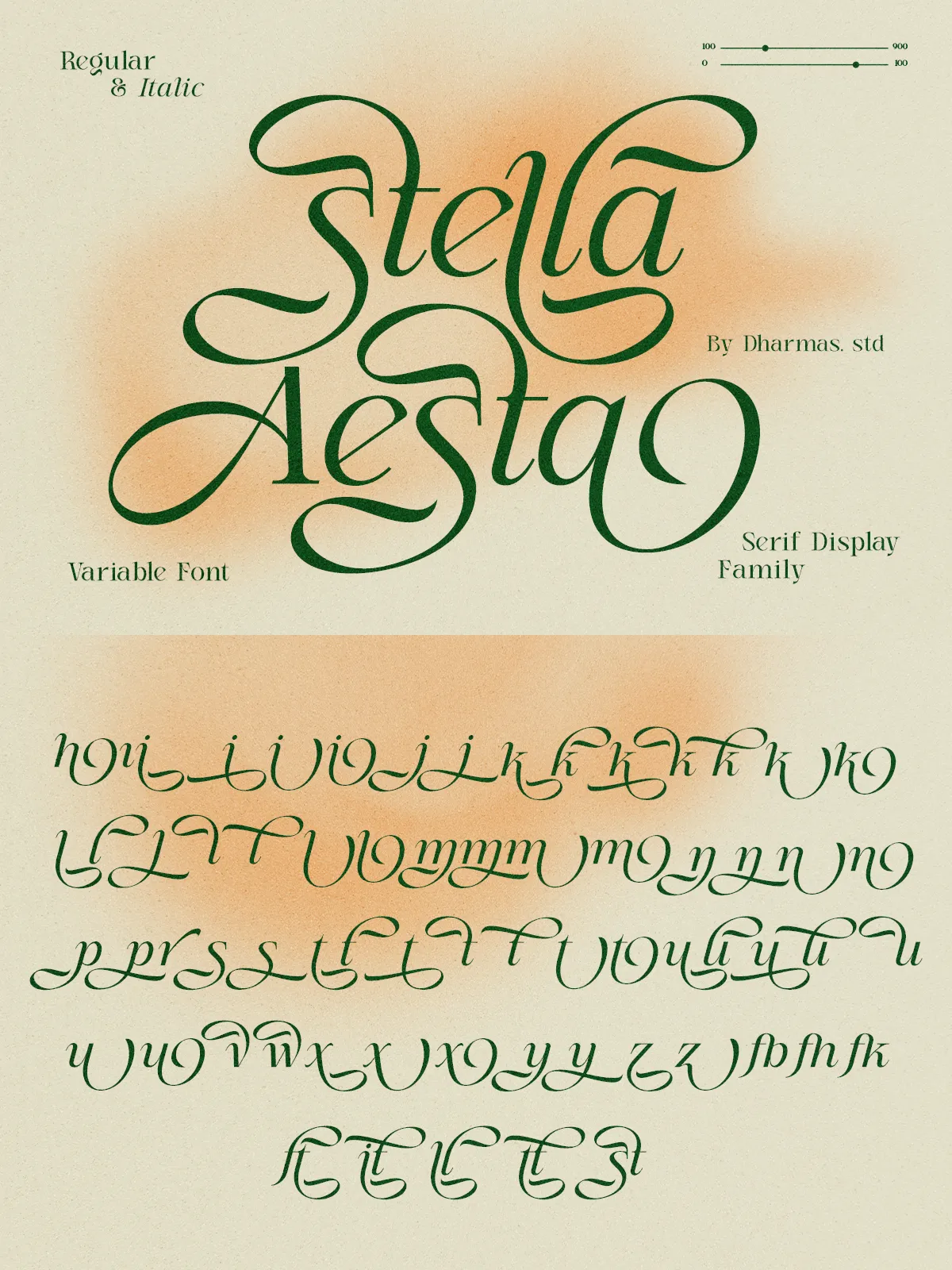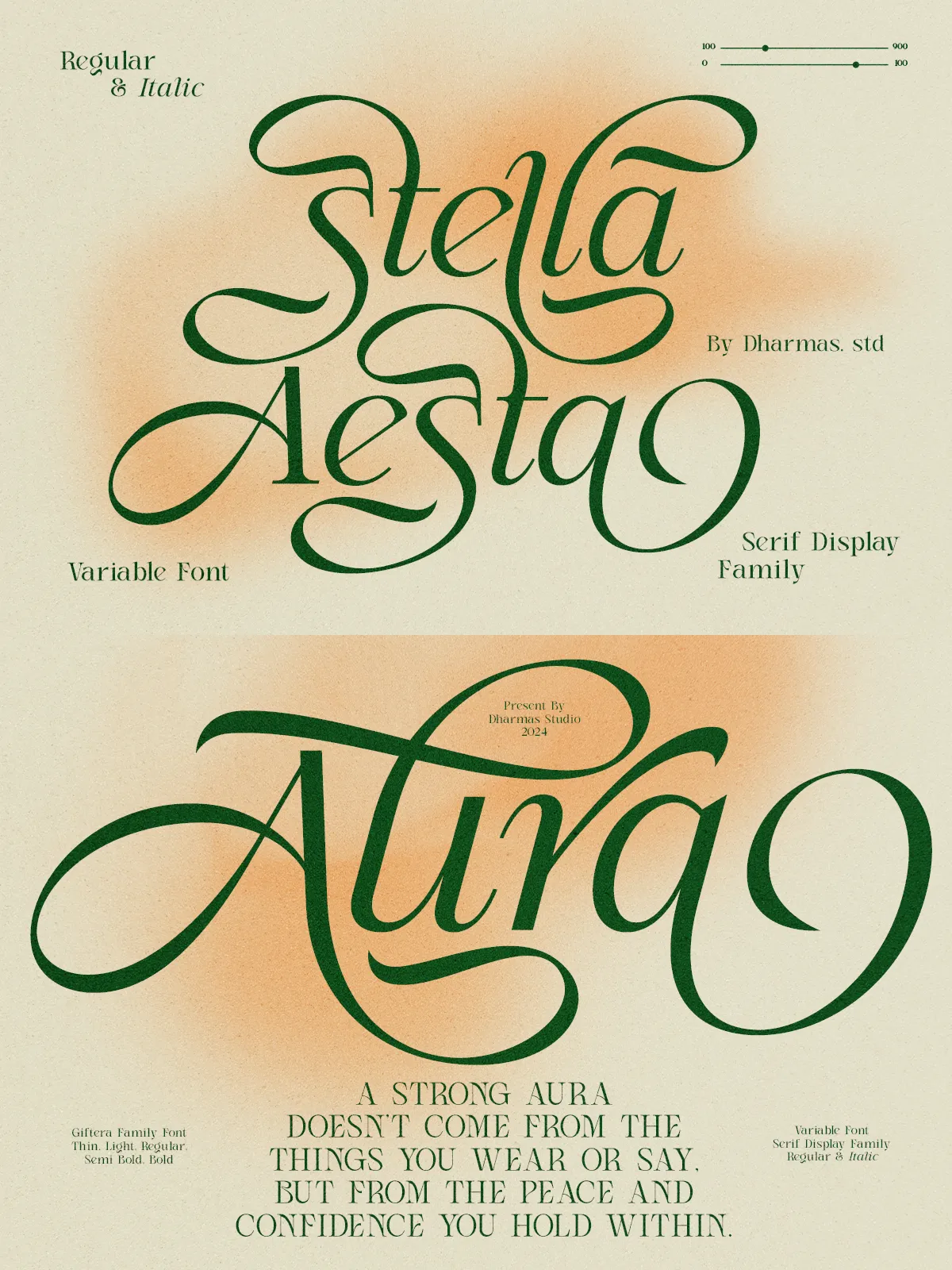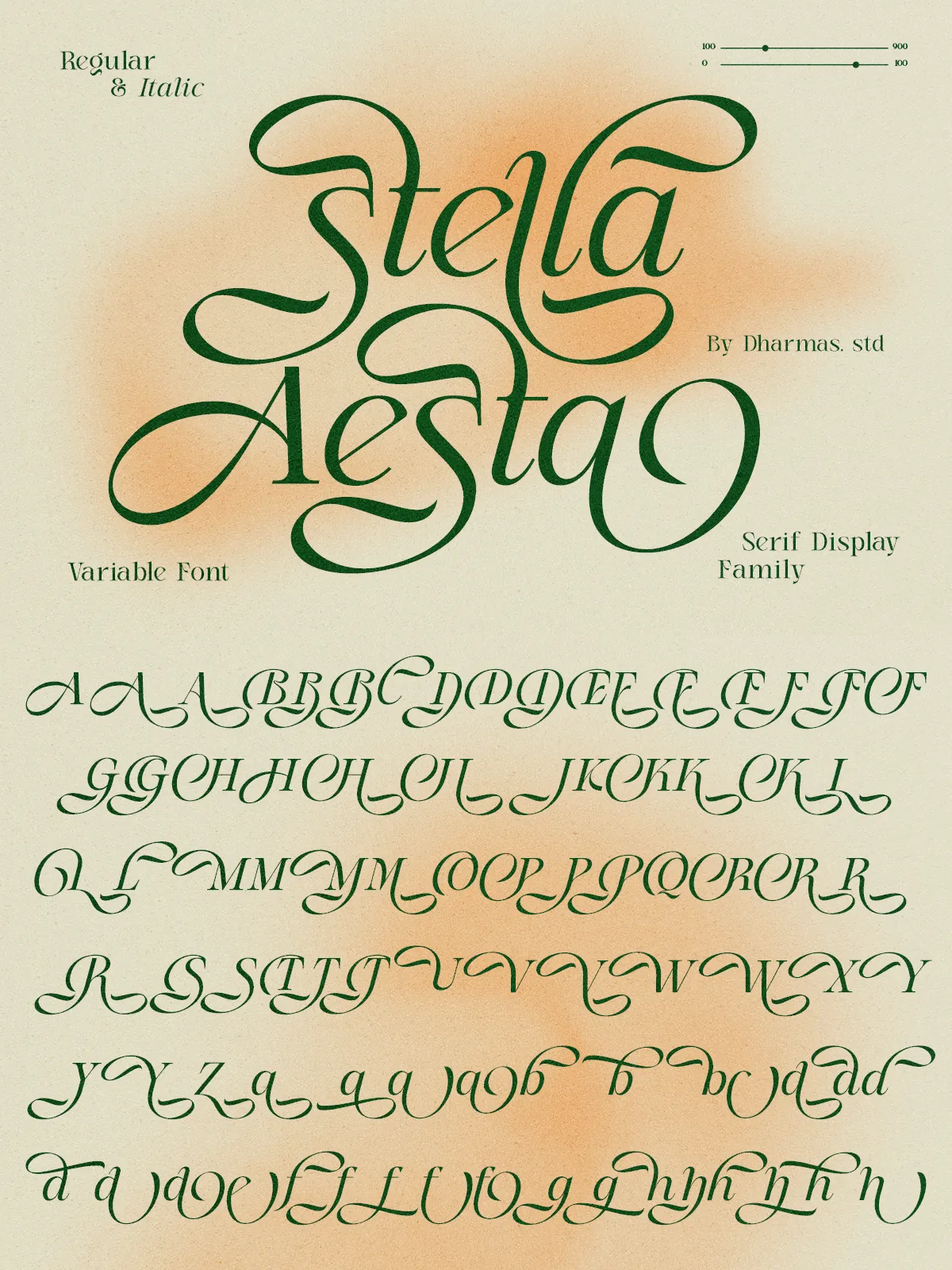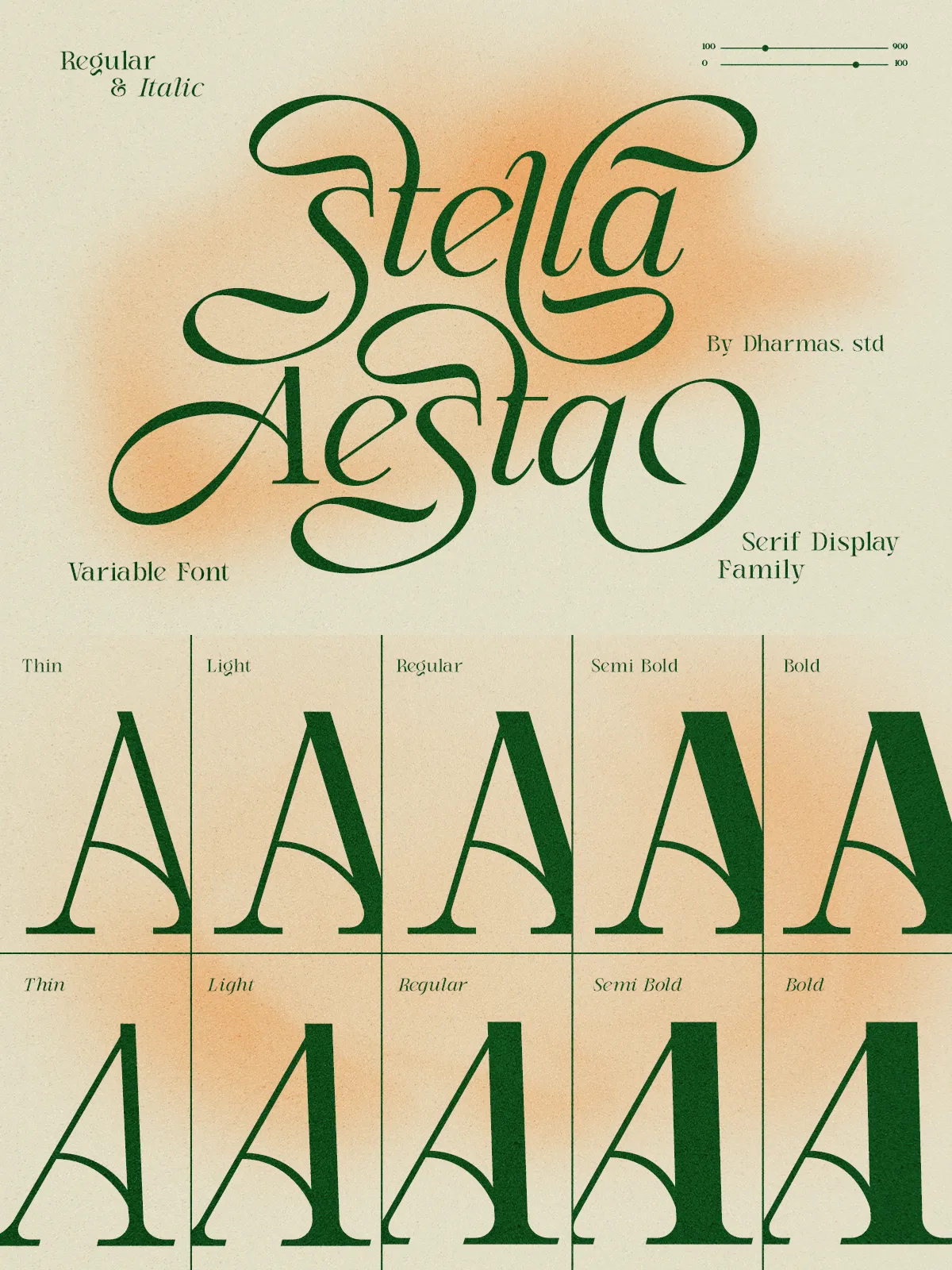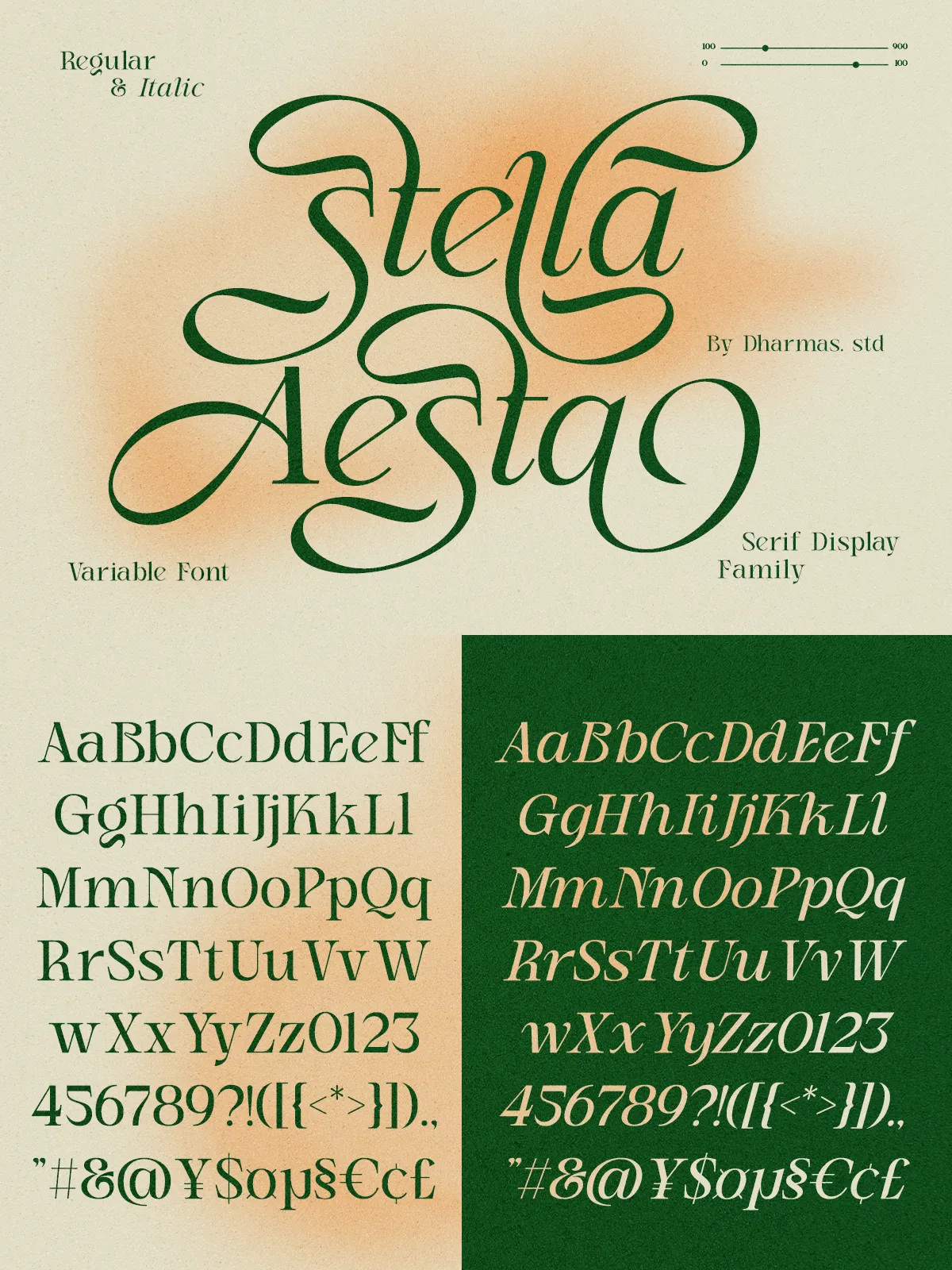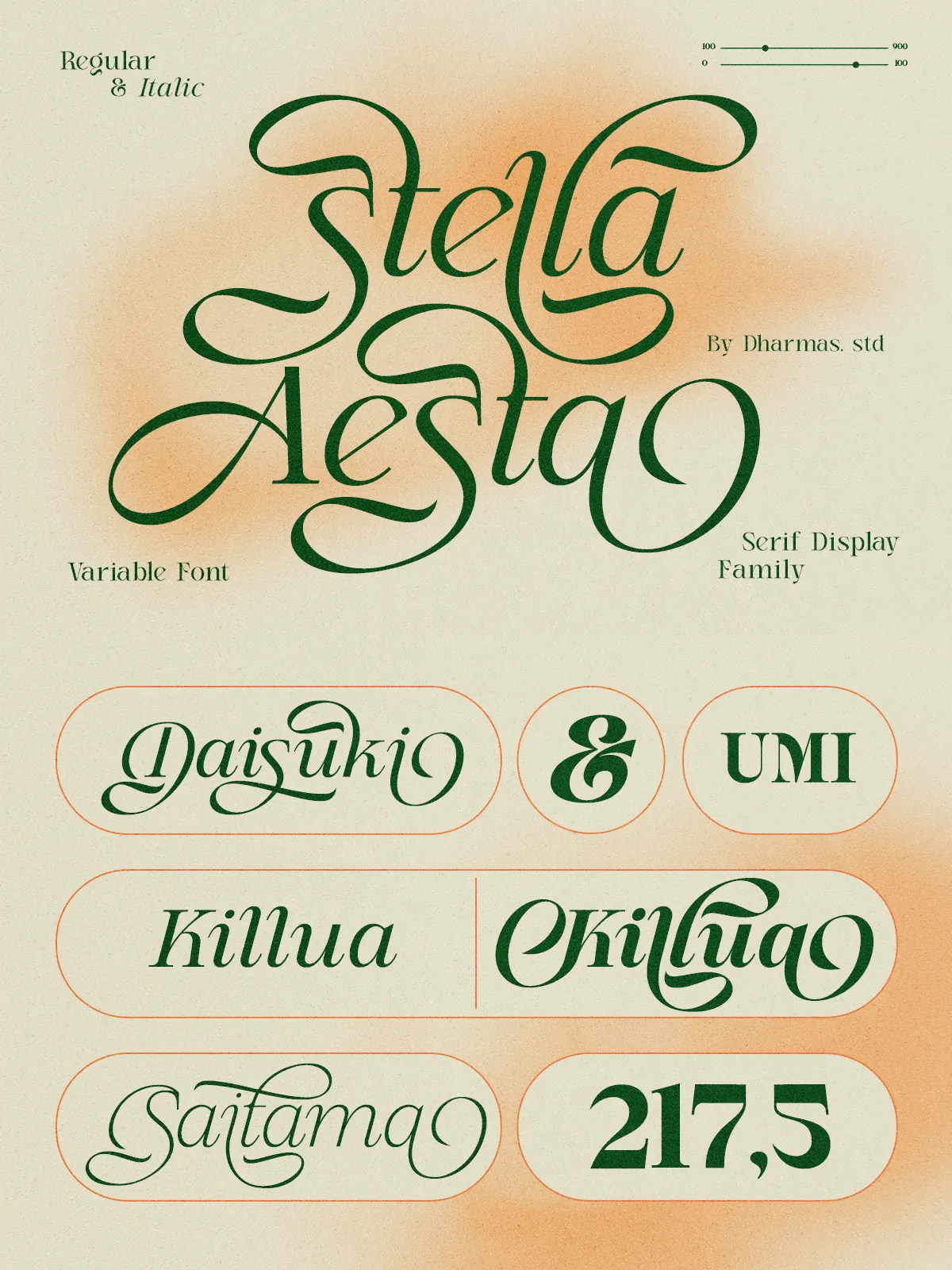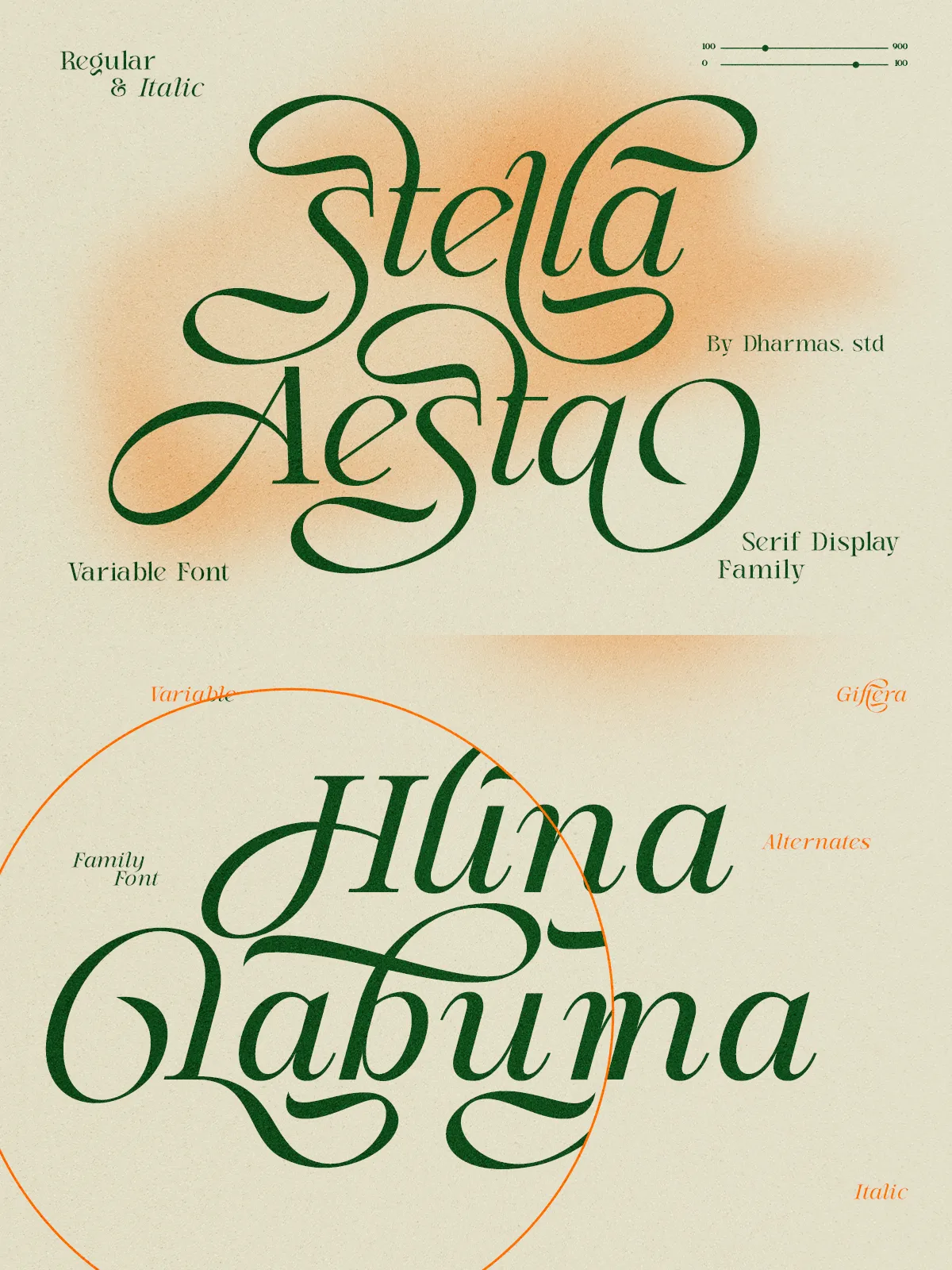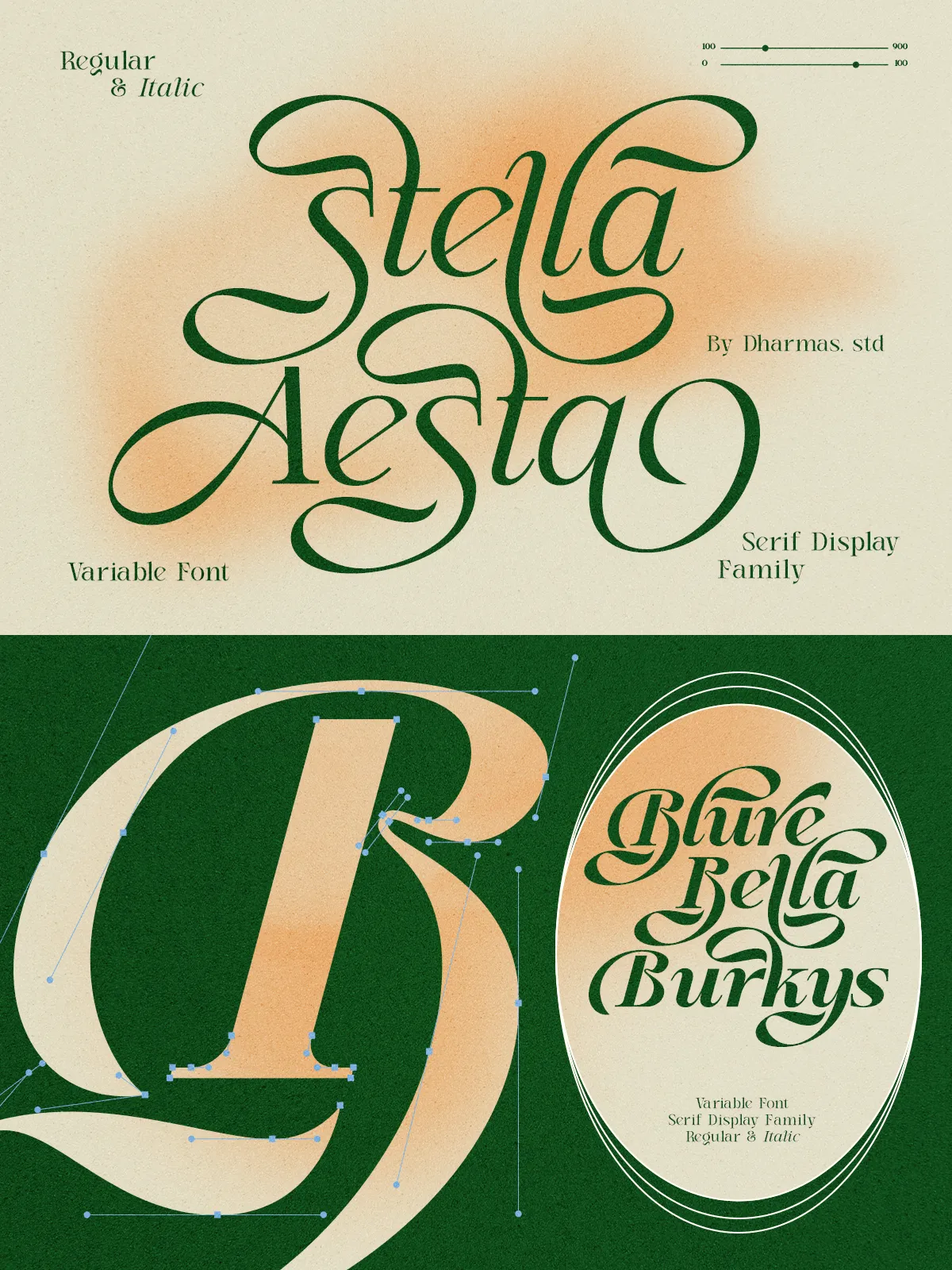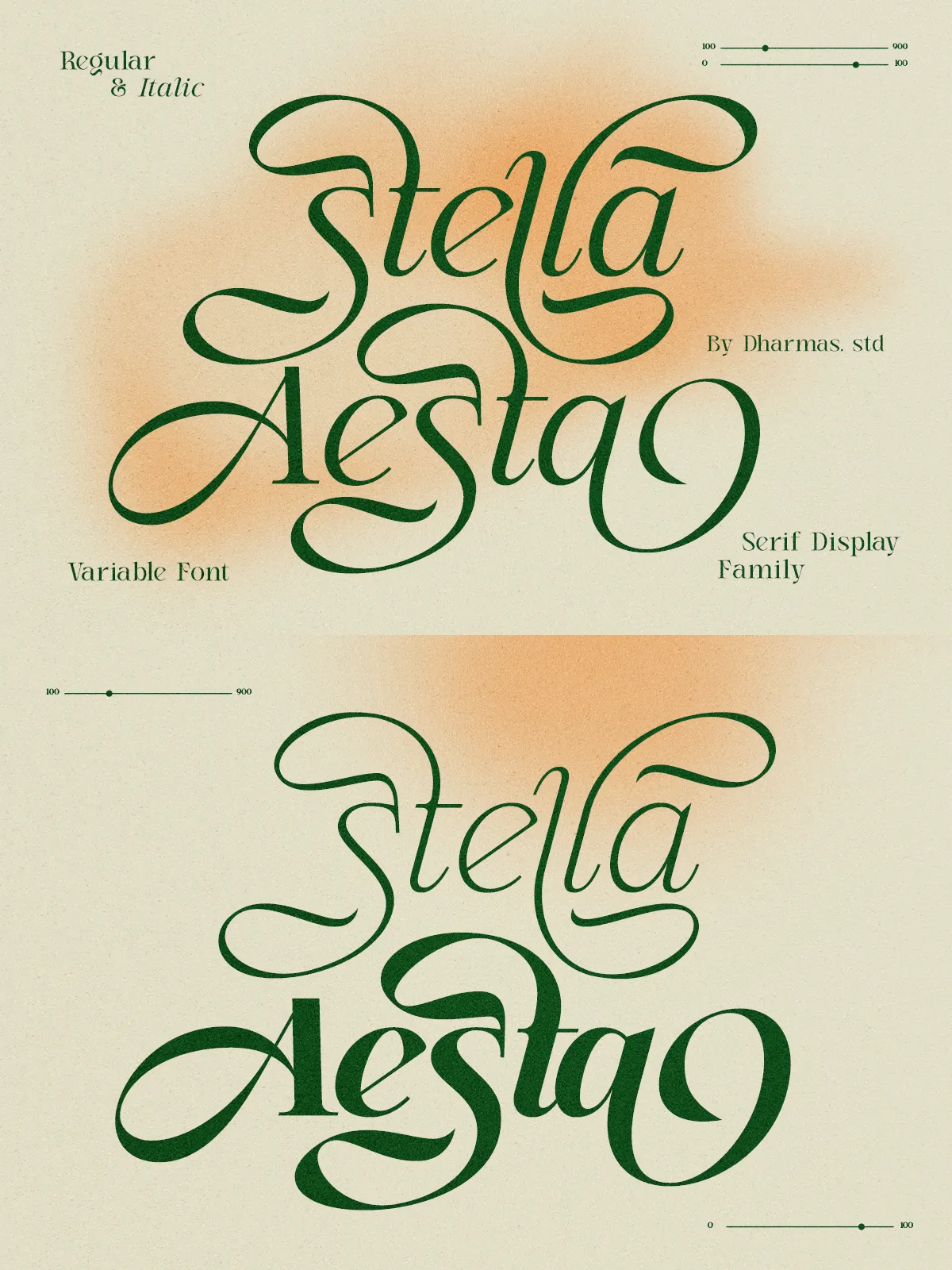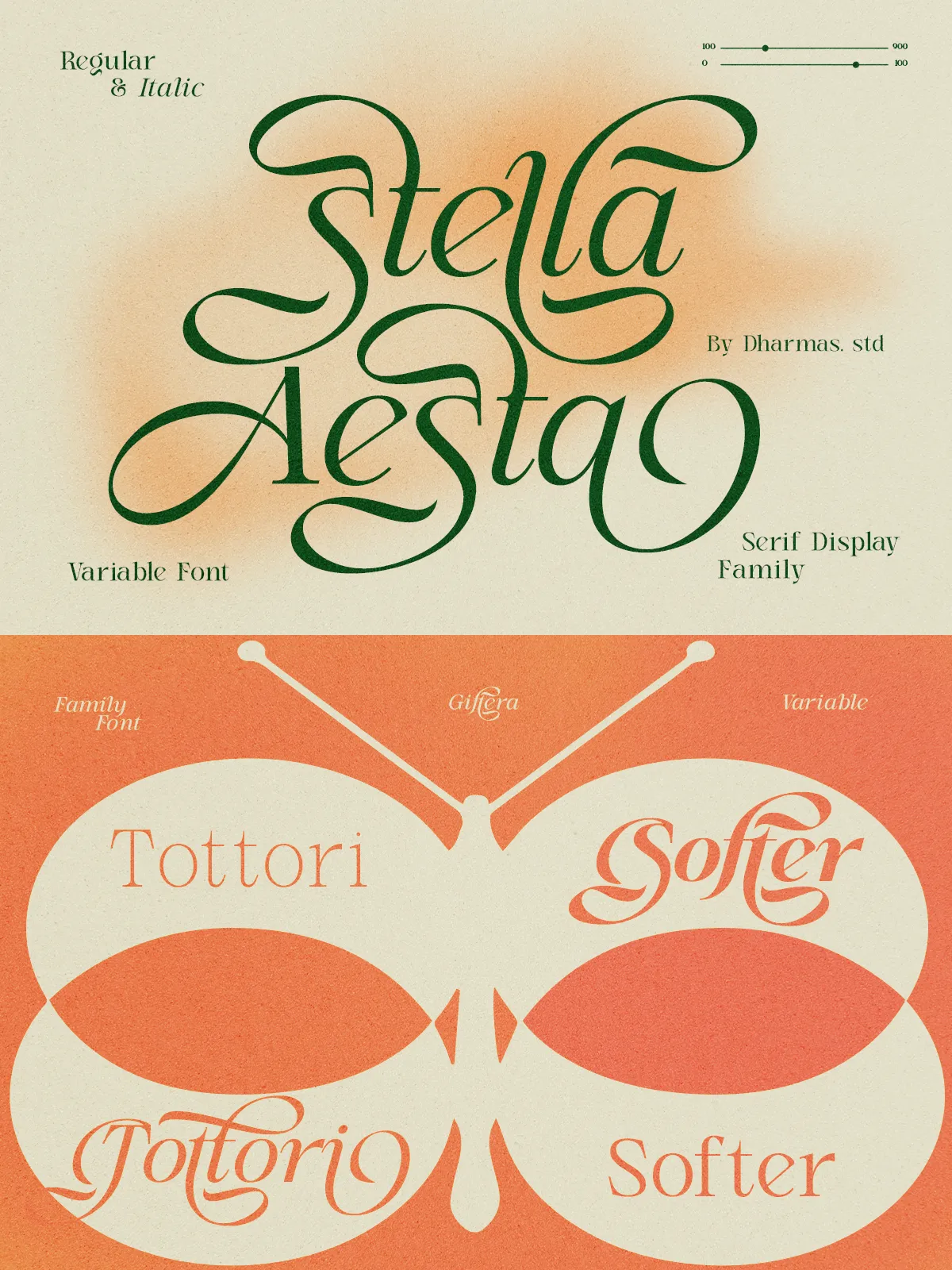
Introducing Stella Aesta – Butterfly Swash Display Family
Stella Aesta is an elegant serif font family featuring beautiful swashes that resemble butterfly wings, With its refined curves and delicate details, this font family is perfect for designs that need a timeless and enchanting feel.
Available in Regular and Italic versions across 5 weights (Light, Regular, Medium, Semi Bold, and Bold), Stella Aesta offers a total of 10 fonts for versatile use. The Italic version comes with over 157 beautiful swashes and unique ligatures, making it ideal for creating stunning logos, quotes, blog posts, branding projects, wedding invitations, and more.
With its butterfly-like swashes and timeless elegance, Stella Aesta will add a magical touch to your next design project.
Regular and Italic (Butter
5 Weights: Light, Regular, Medium, Semi Bold, Bold
157+ Unique Alternates and Ligatures
Letters, numbers, symbols, and punctuation